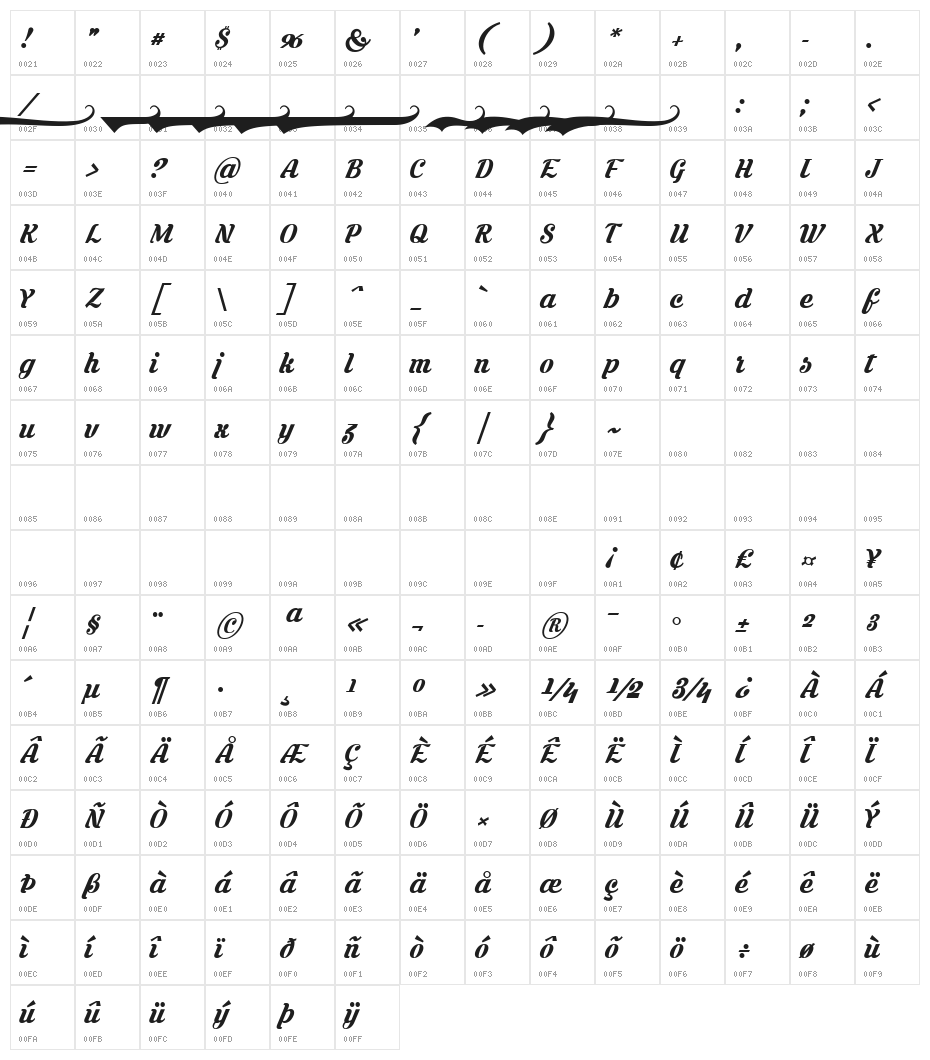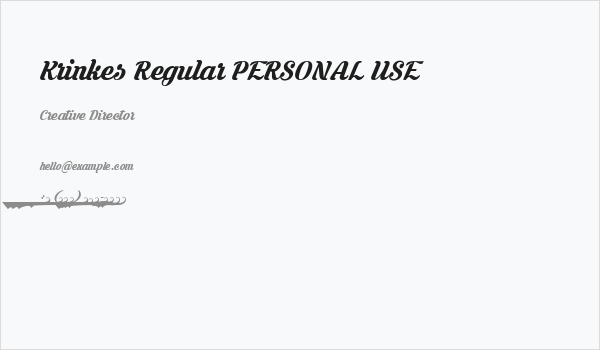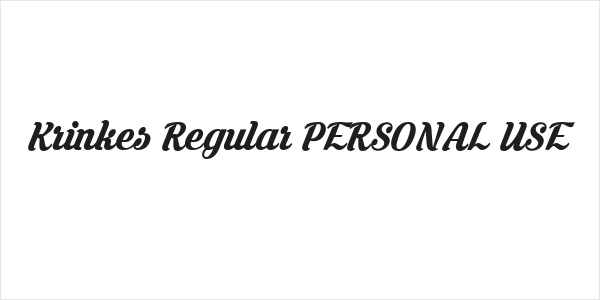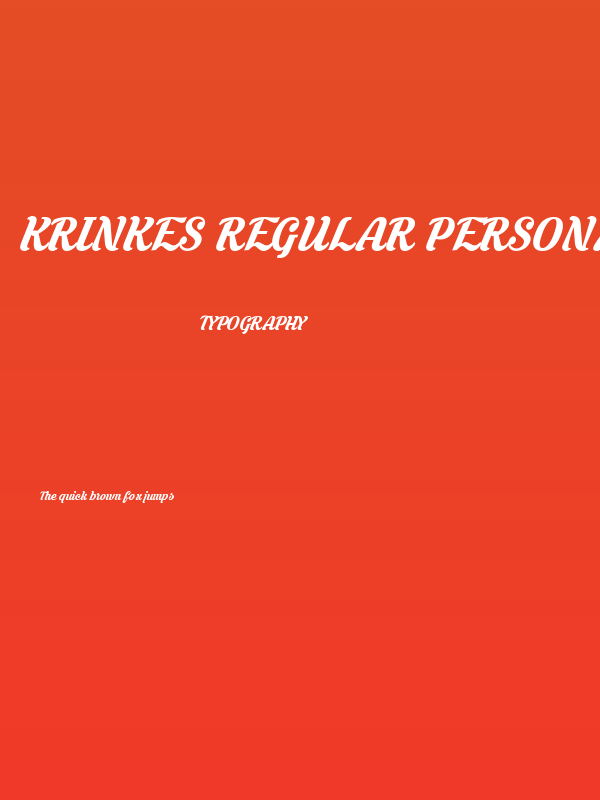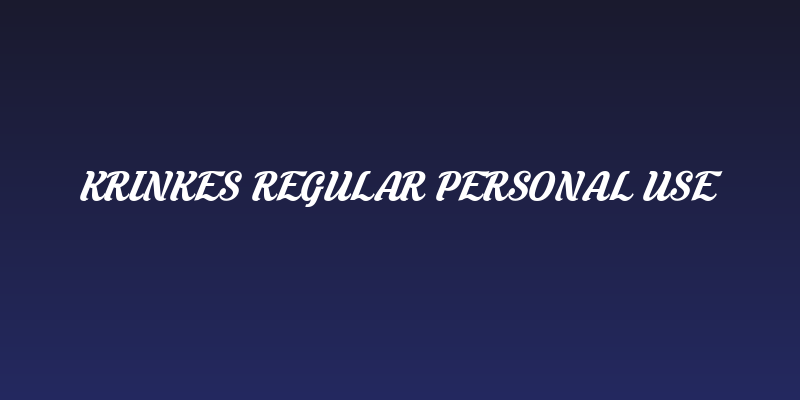
Krinkes Regular PERSONAL USE Font
Krinkes Regular PERSONAL USE Description
This font features a bold and flowing script style, characterized by its elegant and dynamic curves. The uppercase letters are prominently designed with a sense of movement, while the lowercase letters maintain a consistent fluidity. The font includes a variety of special characters and numerals, each maintaining the same stylistic flair. Its overall appearance is both sophisticated and playful, making it suitable for creative and decorative uses. The strokes are thick, providing a strong visual impact, and the characters are closely spaced, enhancing its cohesive look.
Use CaseLogos, Headlines, Invitations
Proposed ProjectsIdeal for wedding invitations, branding, logo design, and decorative projects.